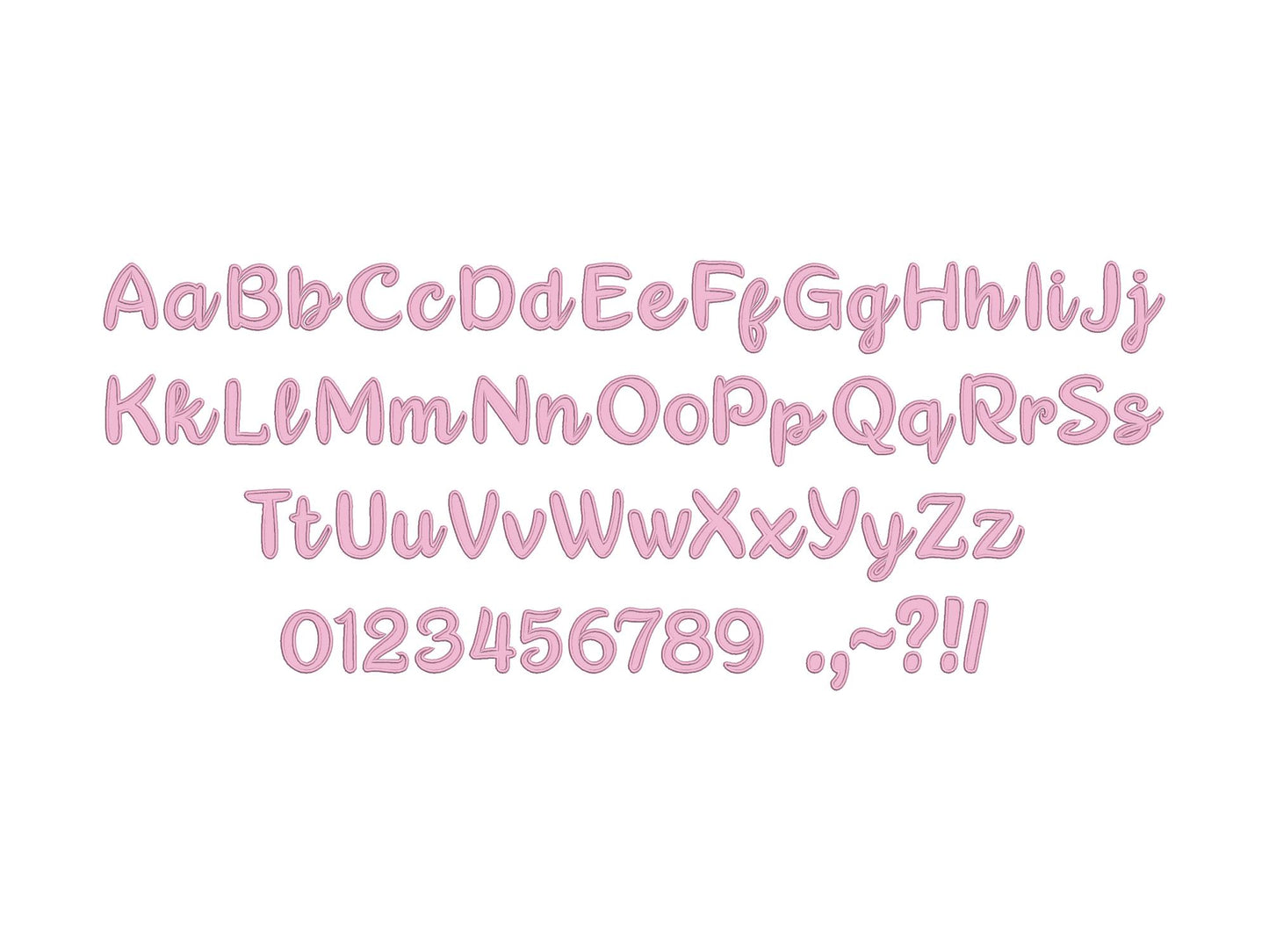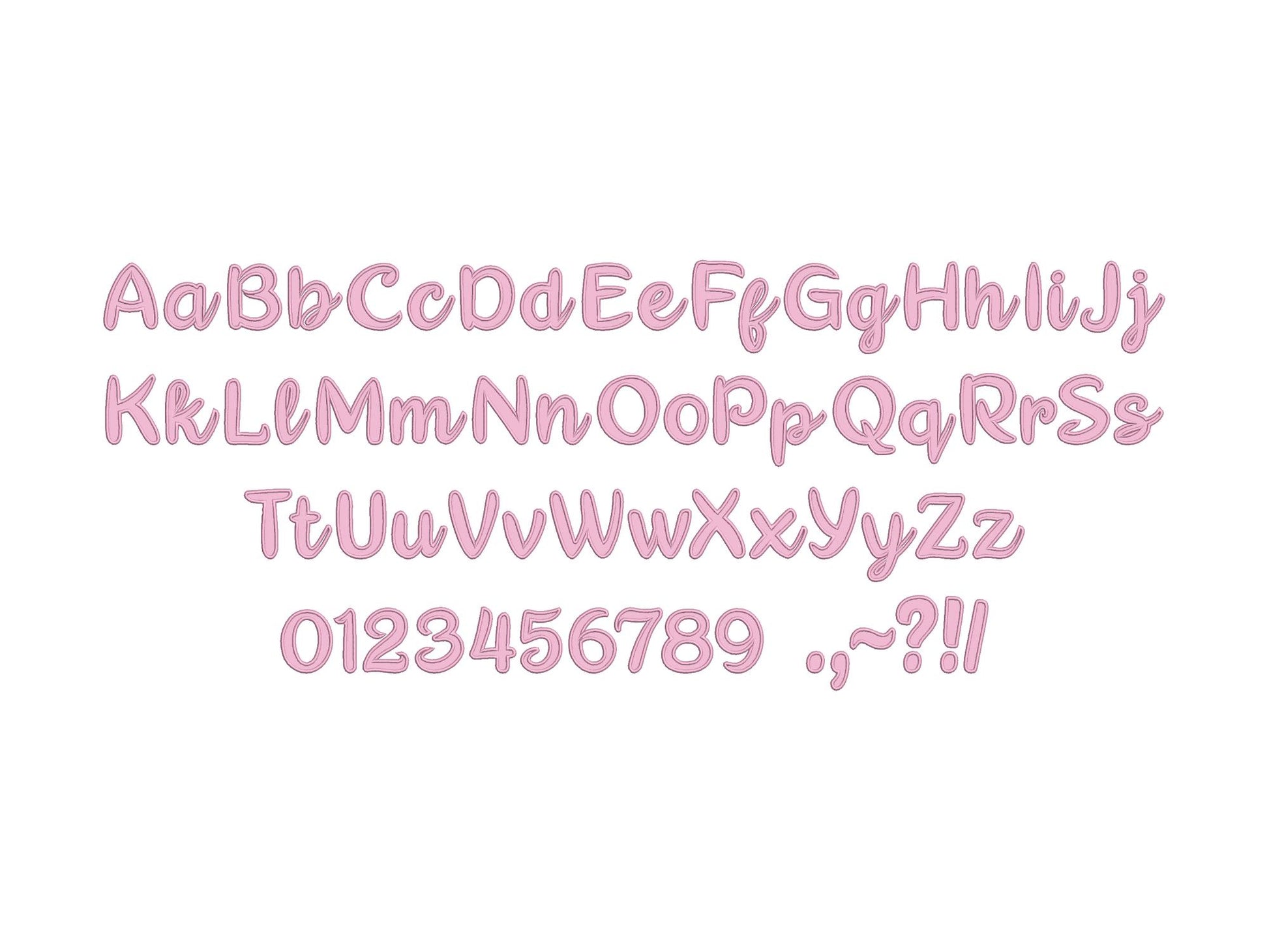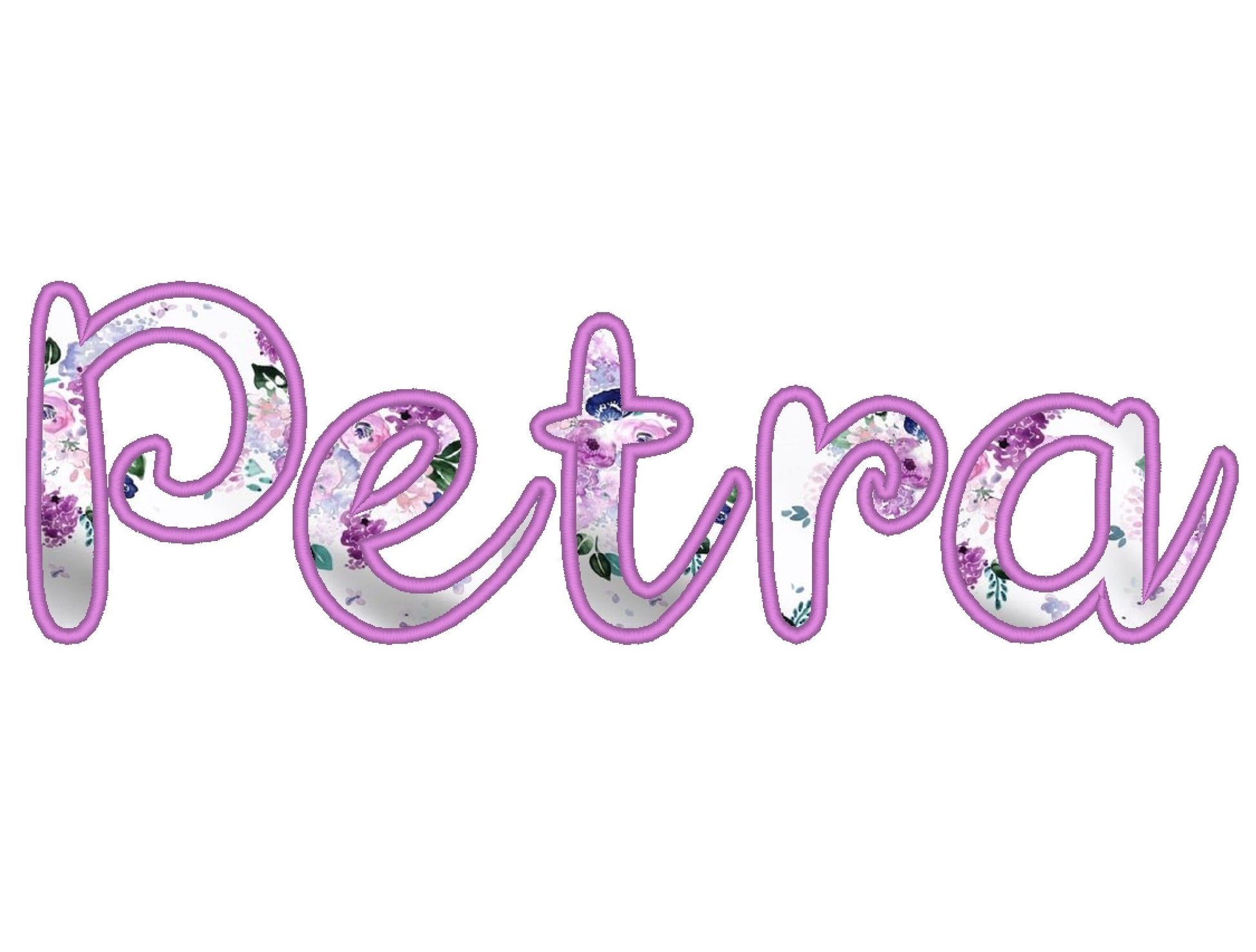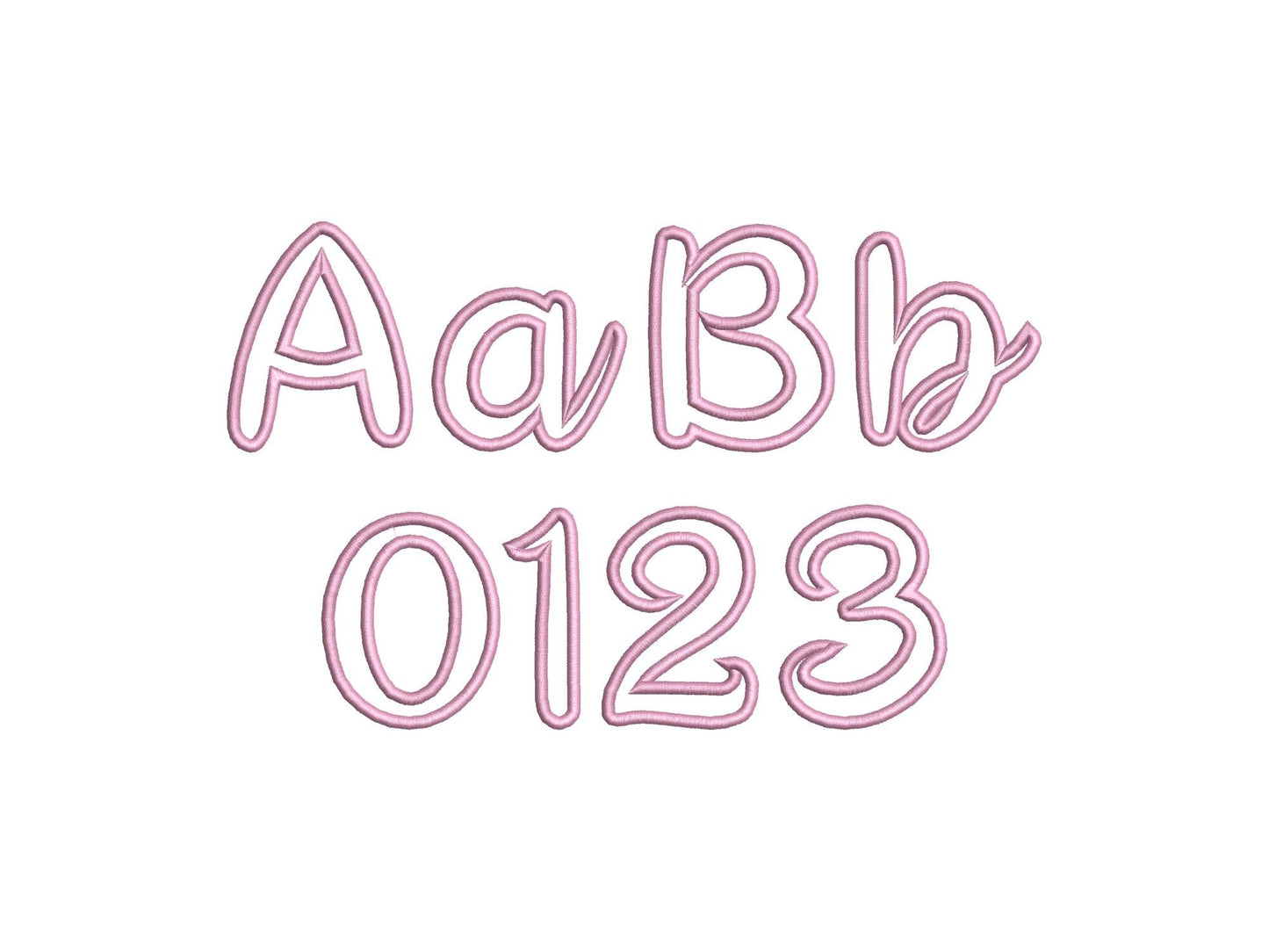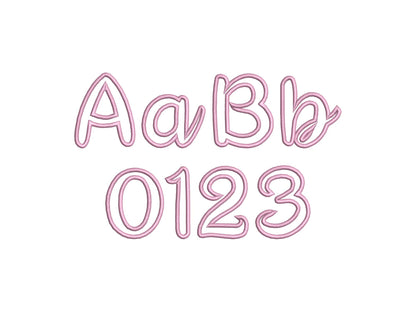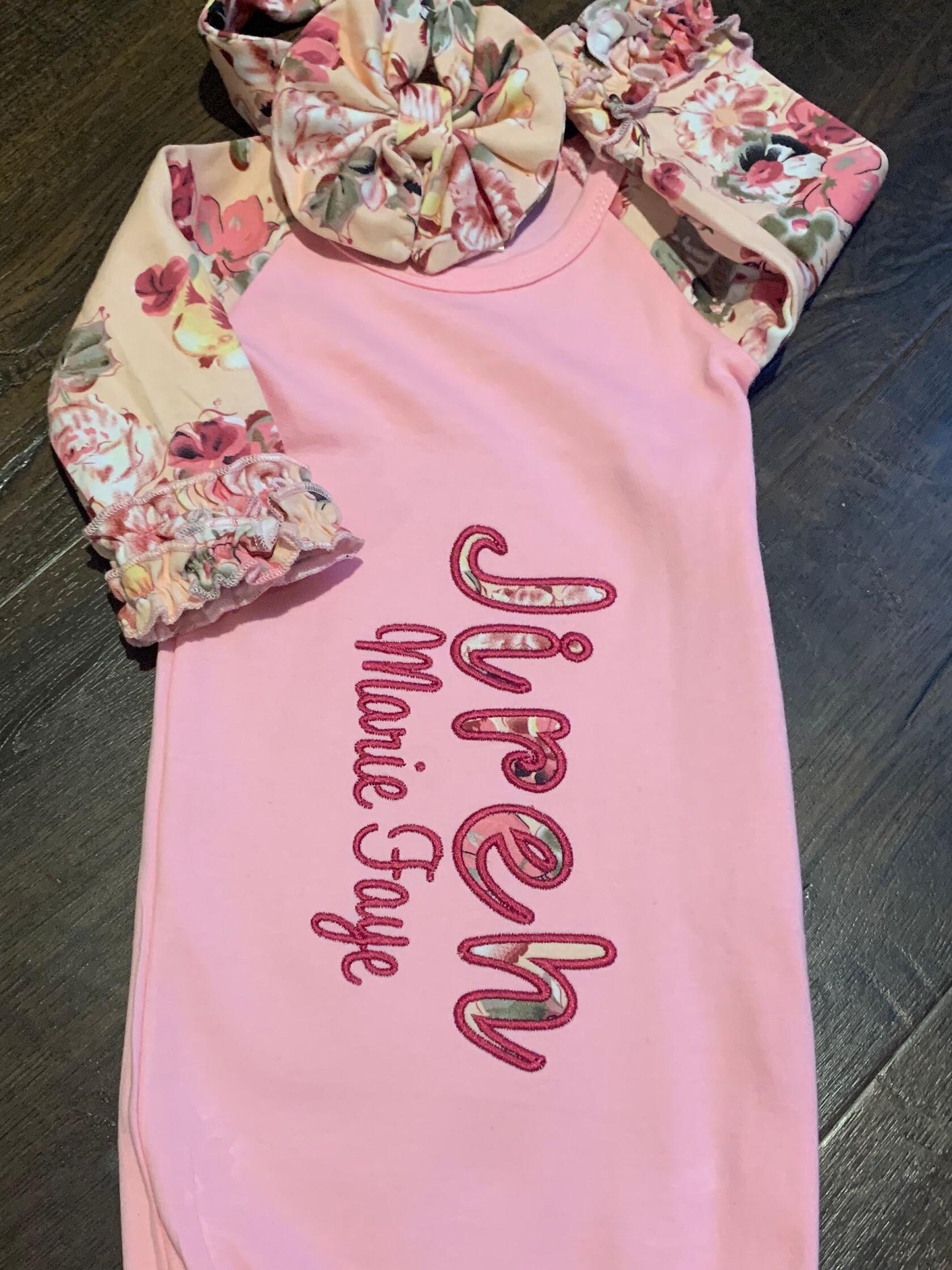
Or click to open the linkA handwritten applique font with a satin stitch outline, for kids' and baby names on shirts, blankets and pillows.
Uppercase and lowercase letters, numbers and punctuation in seven sizes: 2, 2.4, 2.8, 3.5, 4, 4.6 and 5.5 inches.